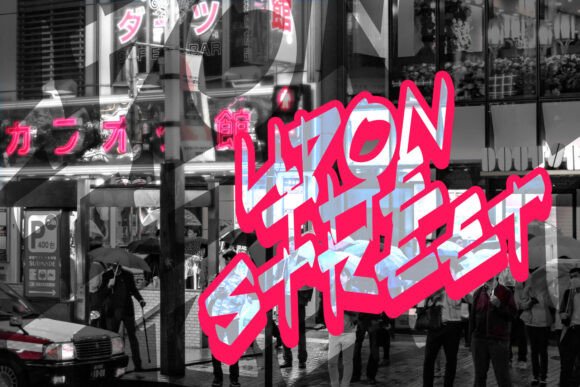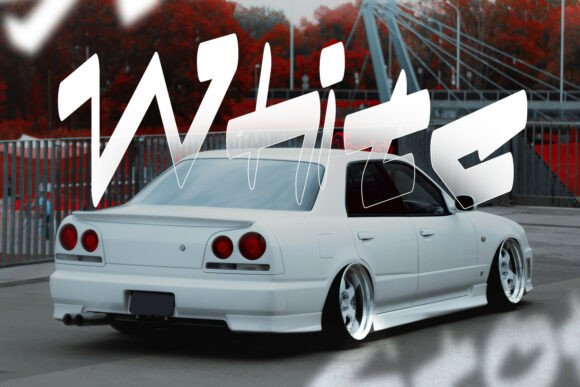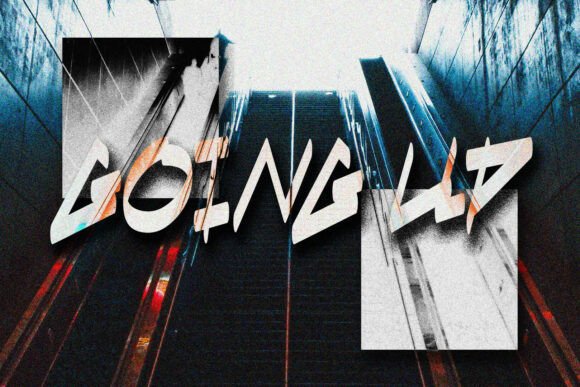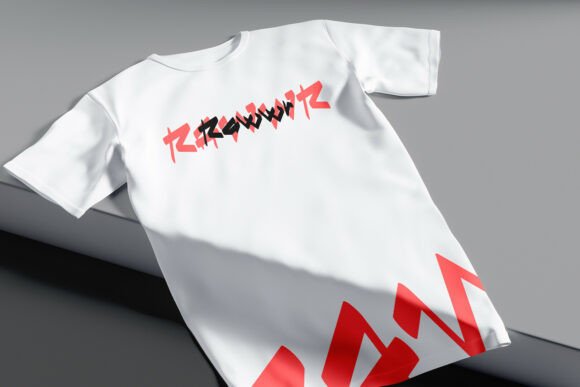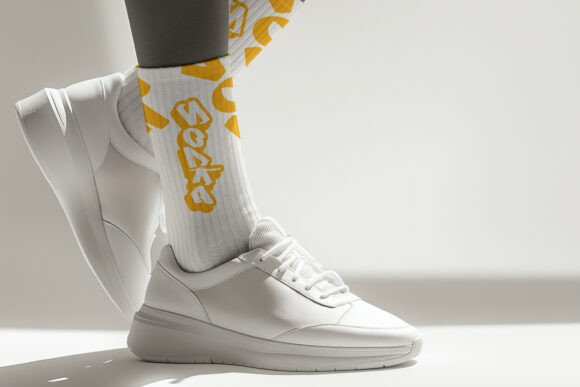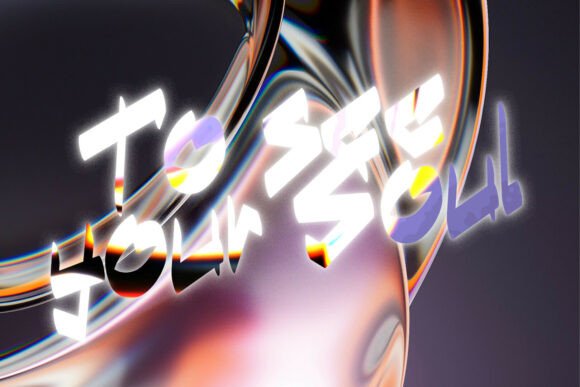
Introduction to Chrova Font
Introducing Chrova: a dynamic cyber-tech graffiti font that radiates boldness and futuristic chrome elegance.
With its metallic, sci-fi undertones, Chrova serves as a striking visual conduit perfect for amplifying the aesthetics of posters, branding efforts, streetwear designs, music art covers, esports, and various digital creativity endeavors The dynamic and aggressive flow of the font strengthens its suitability for hard-hitting headlines and logo designs that magnetize attention.
Key Features of Chrova Font
Why Choose Chrova Font?